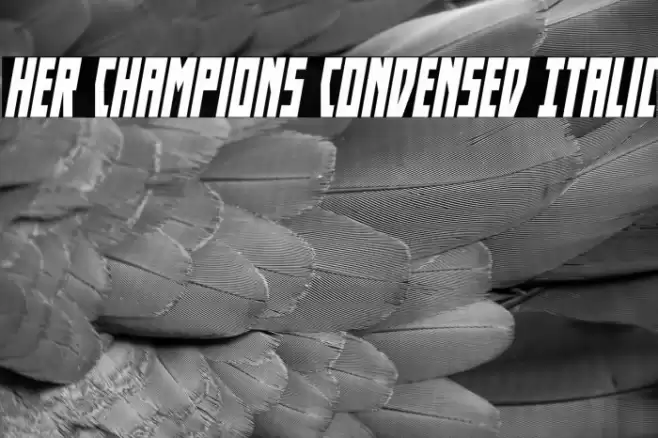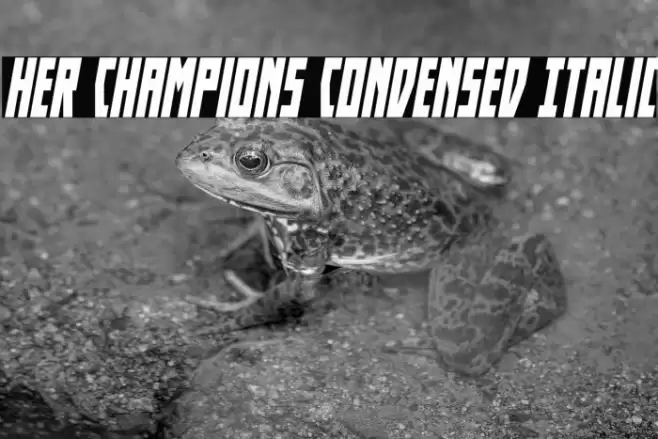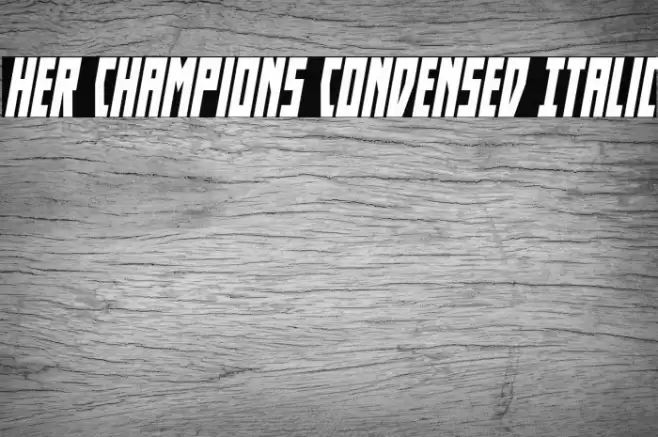
Her Champions Condensed Italic Font
Her Champions Condensed Italic Description
This font features a bold and dynamic style with a condensed and italicized form. The characters are sharply angled, giving a sense of movement and energy. The uppercase and lowercase letters maintain a consistent slant, enhancing the italic effect. The numbers and special characters follow the same design principles, ensuring uniformity across all symbols. The overall appearance is modern and assertive, making it suitable for projects that require a strong visual impact.
A bold, condensed, and italicized font with a dynamic and modern style from Regular fonts.
- Proposed Projects: Ideal for sports branding, dynamic posters, and attention-grabbing headlines.
- Character Spacing: Tight